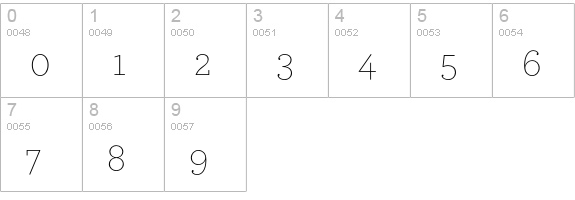
Archer Extra Light is a refined, elegant variant in the Archer typeface family \xE2\x80\x94 well suited to elegant body text, refined sub-headings, and luxury branding.
Archer Extra Light font is a modern and elegant typeface that exudes sophistication and charm. With its delicate strokes and clean lines, this font is perfect for projects that require a touch of refinement and subtlety. The airy spacing and slender letterforms of Archer Extra Light create a sense of lightness and grace, making it ideal for use in a variety of design applications. Best of all, Archer Extra Light font is available for free download at FontsMarket.com. This means you can easily access this exquisite typeface and enhance your projects with its timeless appeal without any cost. Whether you're working on branding, editorial design, or any other creative endeavor, Archer Extra Light font is a versatile choice that will elevate your work to new heights. Download it today and add a touch of elegance to your designs.